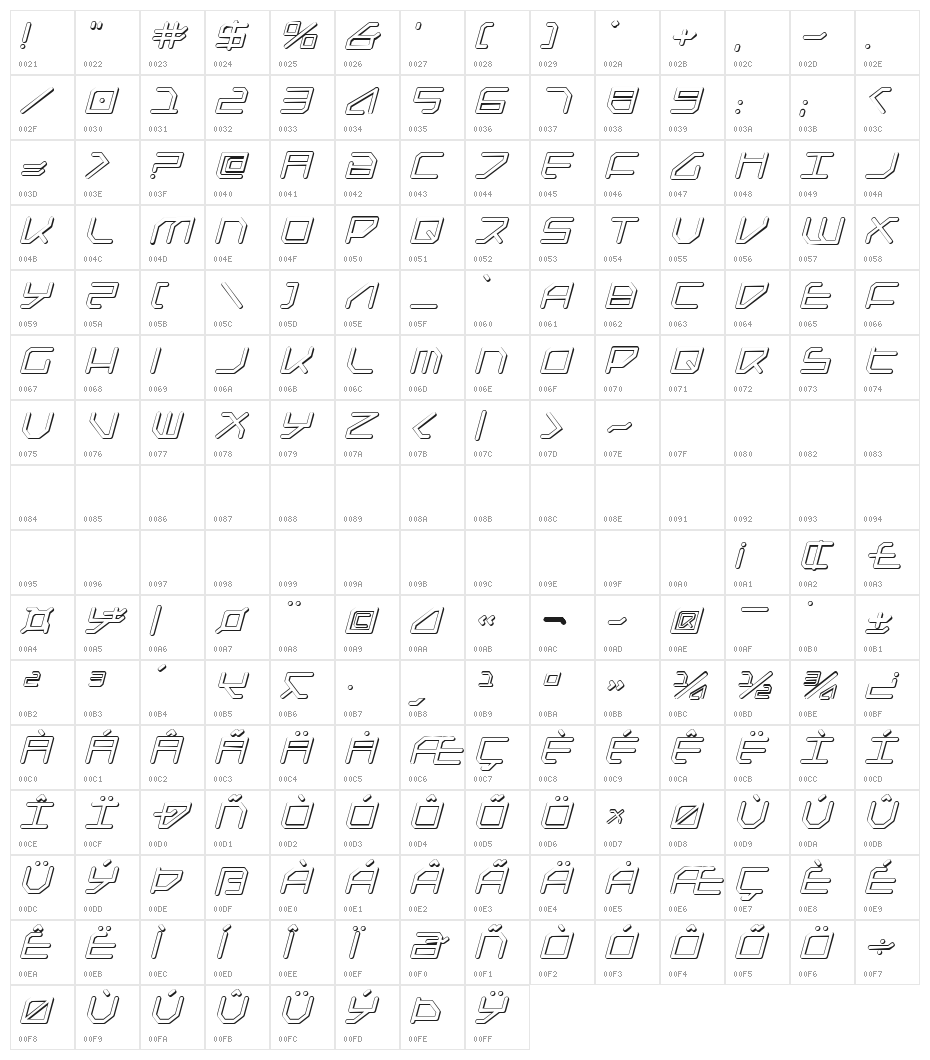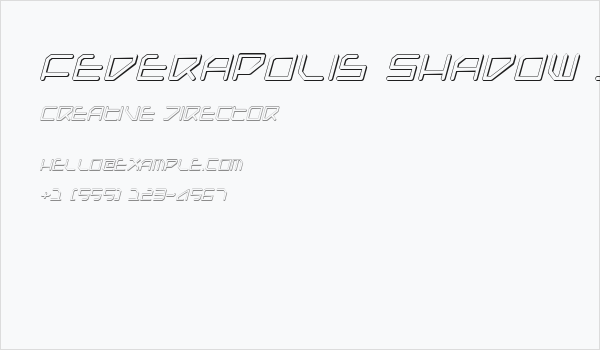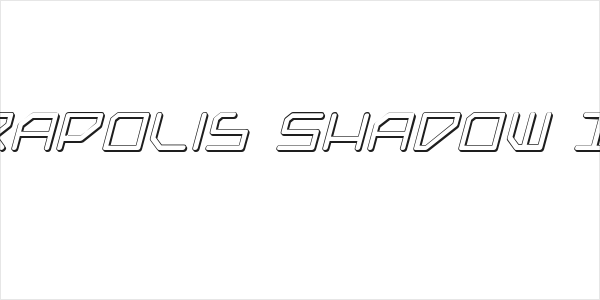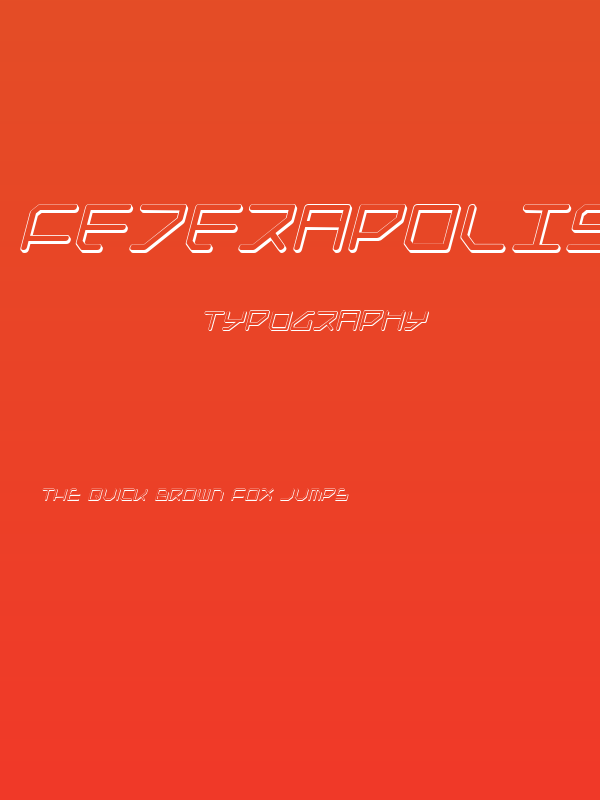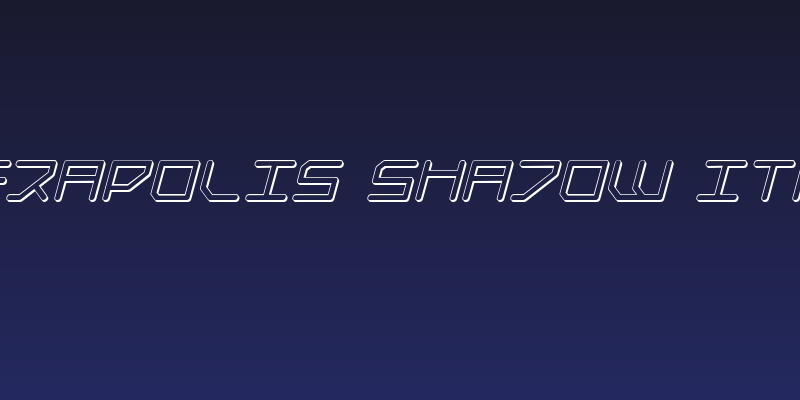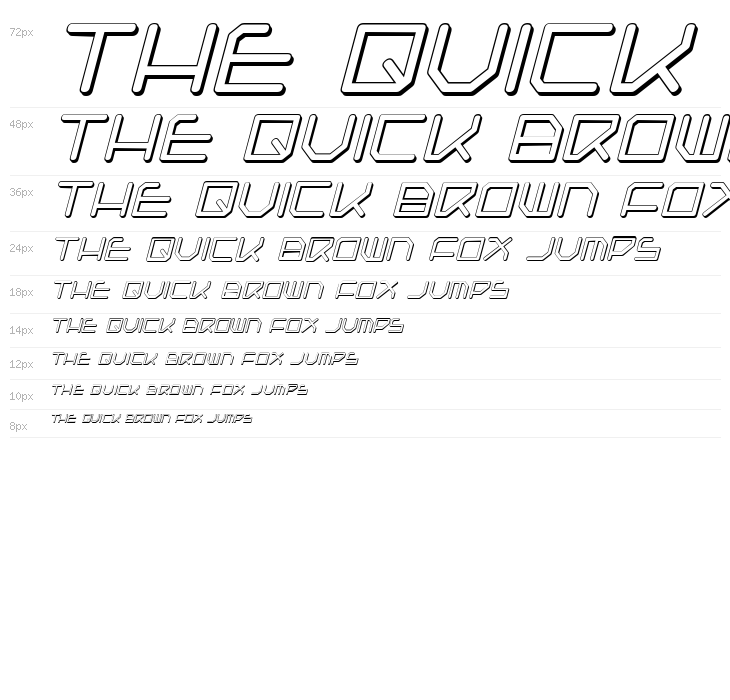
Federapolis Shadow Italic Font
Federapolis Shadow Italic Description
This font features a futuristic and geometric design with a shadow effect that gives it a three-dimensional appearance. The characters are outlined, creating a hollow look that adds depth and visual interest. The angular and sharp edges of the letters contribute to a modern and tech-inspired aesthetic. The uppercase and lowercase letters maintain a consistent style, with a slight slant that enhances the italicized effect. The numerals and special characters follow the same design principles, ensuring uniformity across the font. This font is ideal for projects that require a bold and innovative look.
Proposed ProjectsIdeal for tech branding, sci-fi posters, video game titles, and modern advertising.